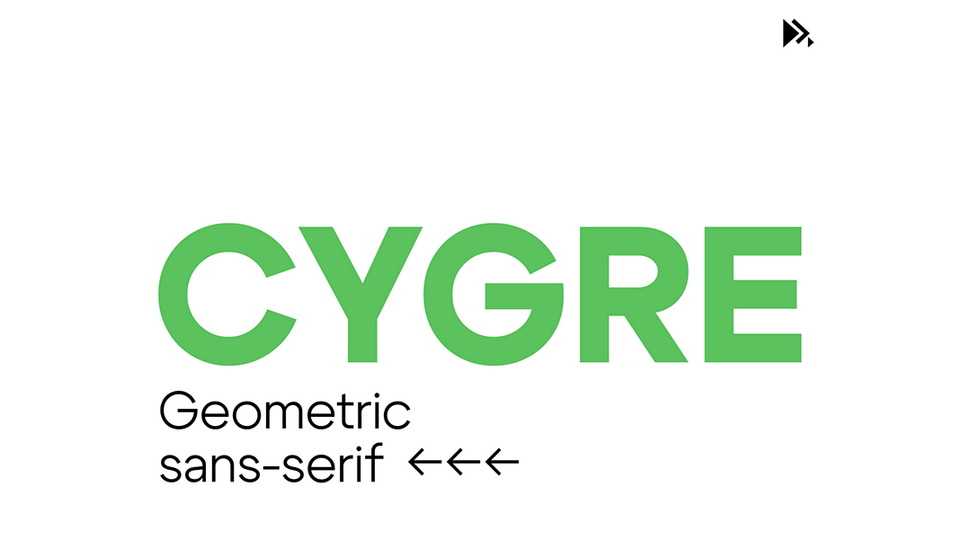
Download Cygre font, just another geometric typeface. It was built upon geometric shapes, especially the circle, giving off an impressive circular feel.